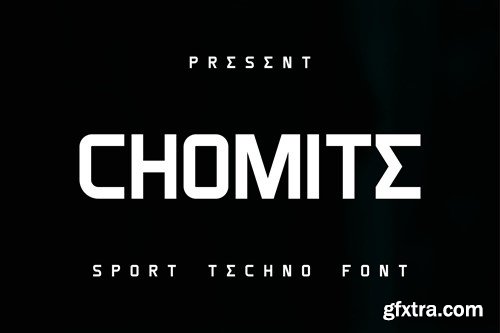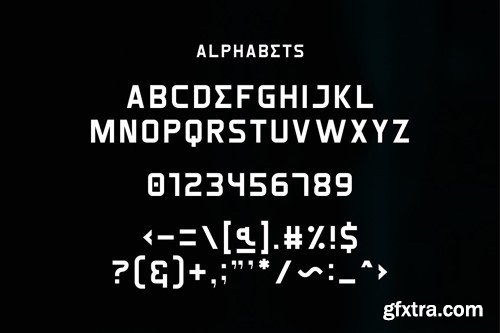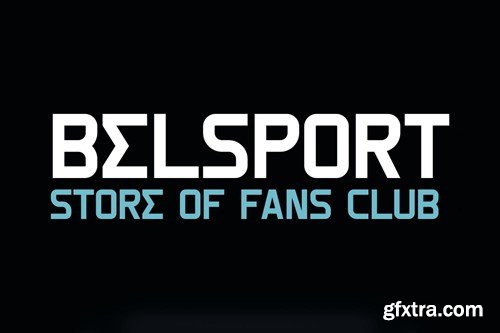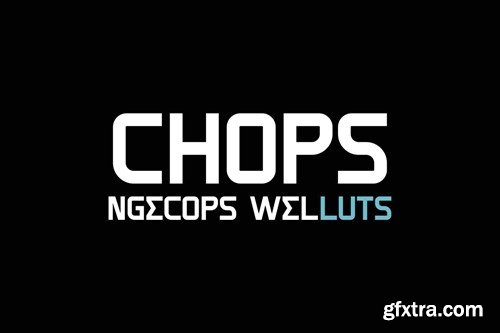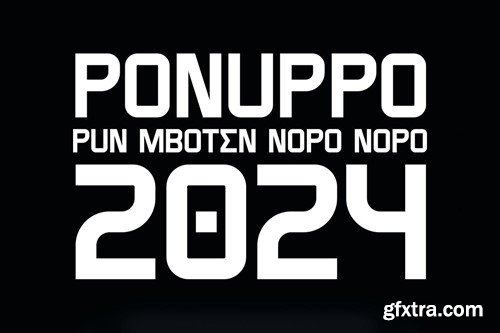
Chomite Font
Introducing Chomite - a versatile typeface meticulously crafted to complement your athletic designs. This font's dynamic and energetic characteristics are boundless, limited only by the extent of your creativity. Whether you're seeking to elevate your sports marketing or seeking a striking typography addition to your creative project, Chomite brings an edge that captures the spirit of athleticism and breaks constraints, enabling you to redefine your design limits. Embrace the game-changing power of Chomite, the font where creativity meets utmost versatility. Available in .OTF & .TTF Formats.